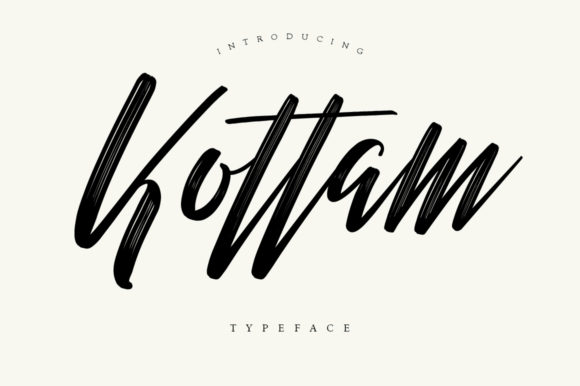
Discover Kottam Font – An Alluring Handwritten Masterpiece for Captivating Creations
Prepare to be mesmerized by Kottam Font, a bold and assertive handwritten font that will ignite your creativity and elevate your designs to new heights. Crafted with the delicate touch of a unique brush pen, Kottam embodies the essence of authenticity, making it the perfect choice for adding a personal touch to your projects.
Whether you're a seasoned designer or an aspiring artist, Kottam Font is your ultimate companion for creating stunning social media posts, eye-catching logos, and captivating posters that will leave a lasting impression. Unleash your imagination and let the flowing strokes of Kottam Font guide you towards extraordinary design possibilities.
Dive into the world of Kottam and witness the seamless fusion of boldness and elegance. Each letter dances across the page with a unique charm, inviting you to explore the endless possibilities that await. From heartfelt calligraphy scripts for your DIY endeavors to captivating sports posters that ignite passion, Kottam adapts effortlessly to your creative vision.
Step into the realm of Kottam Font and embrace the power of handwritten artistry. Allow your imagination to soar as you craft designs that resonate with authenticity and captivate your audience. Experience the magic of Kottam Font today and unlock the gateway to boundless creativity!